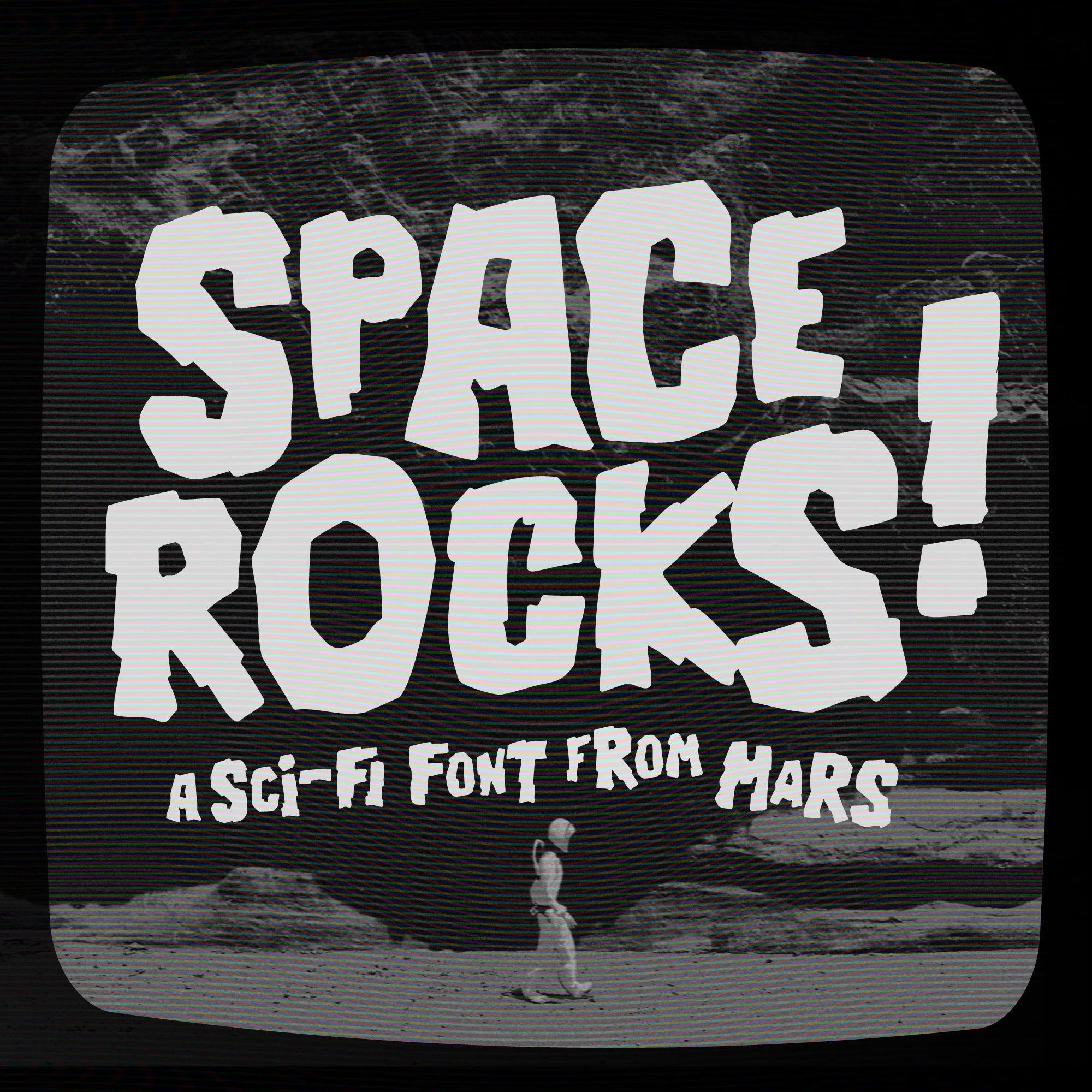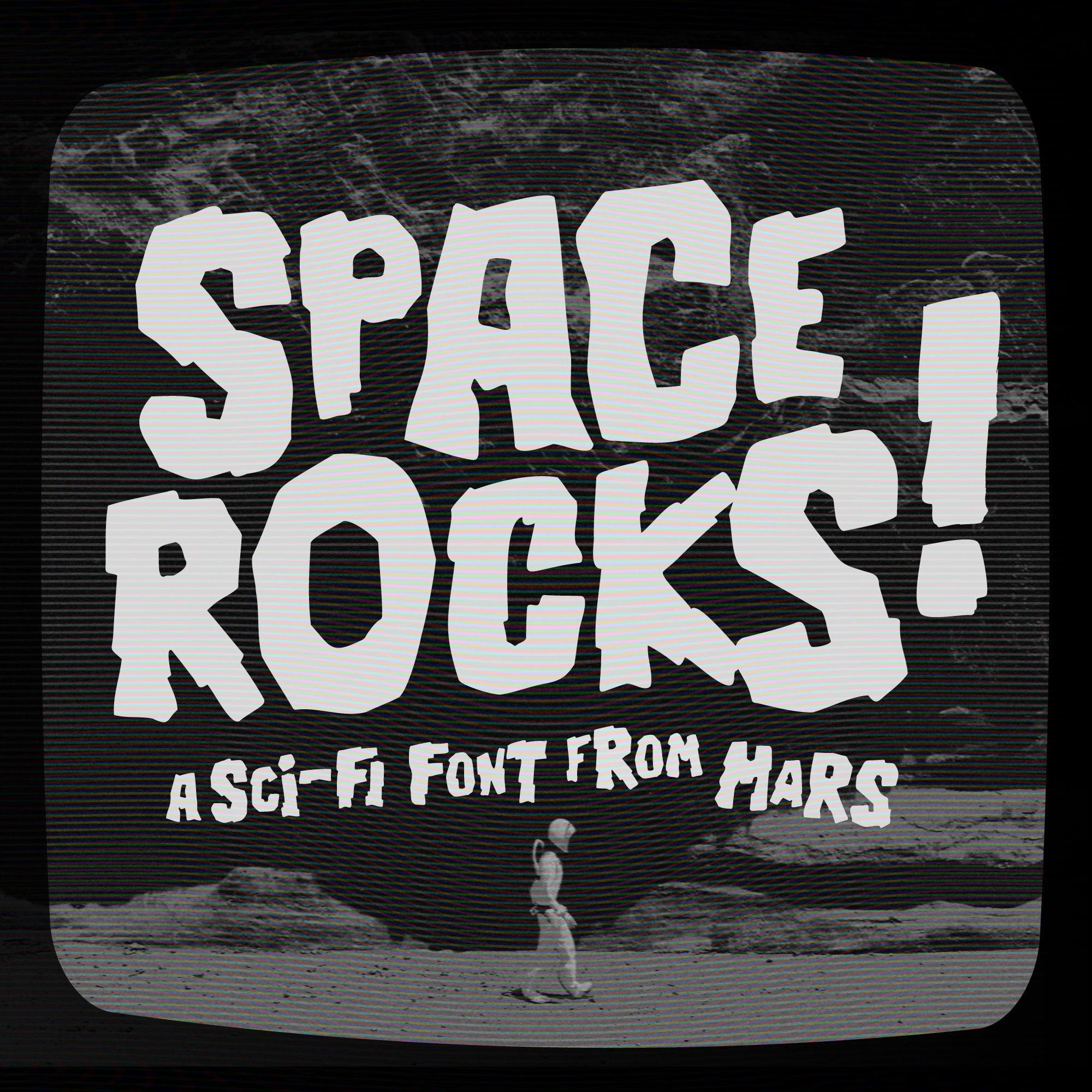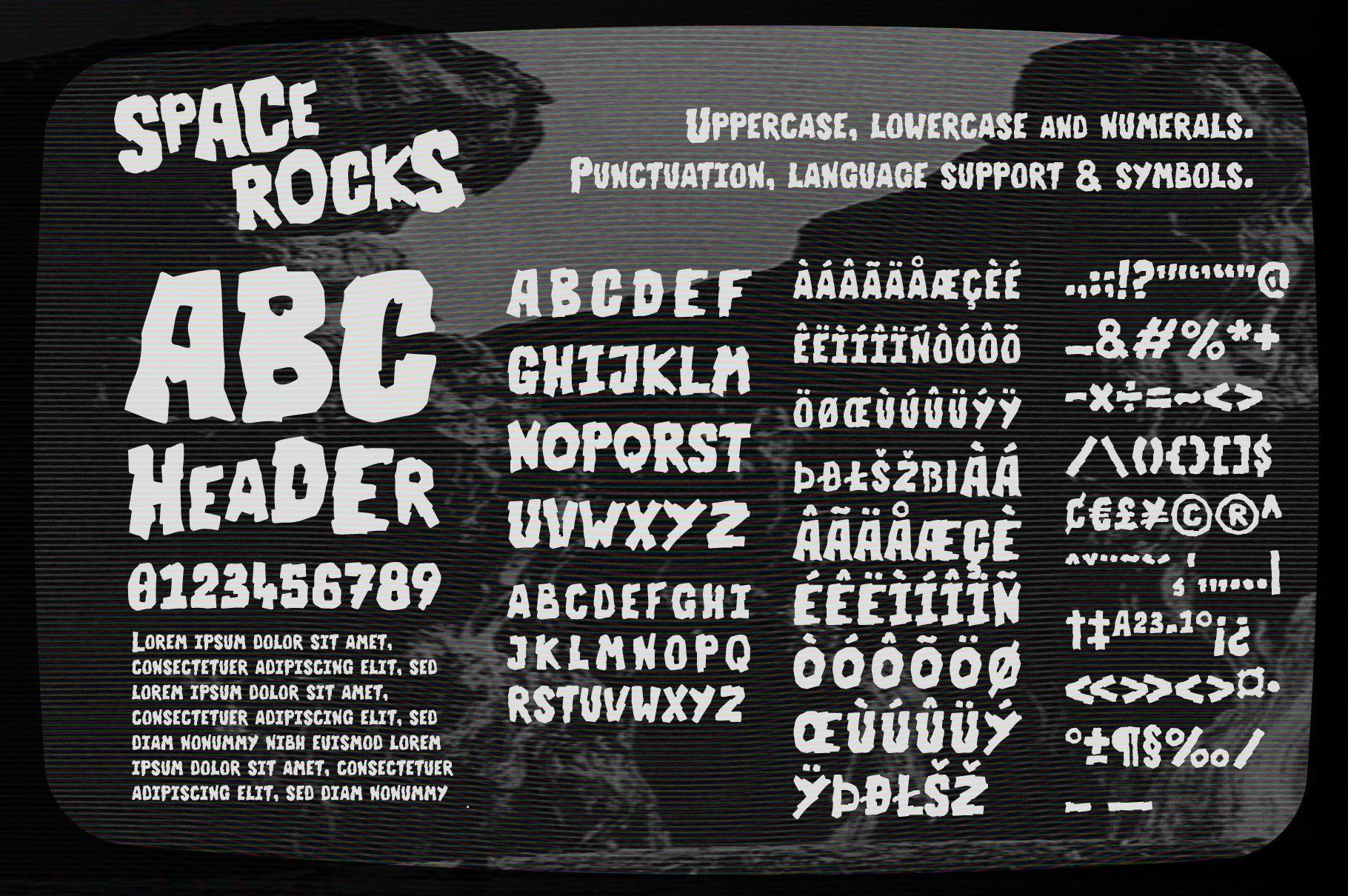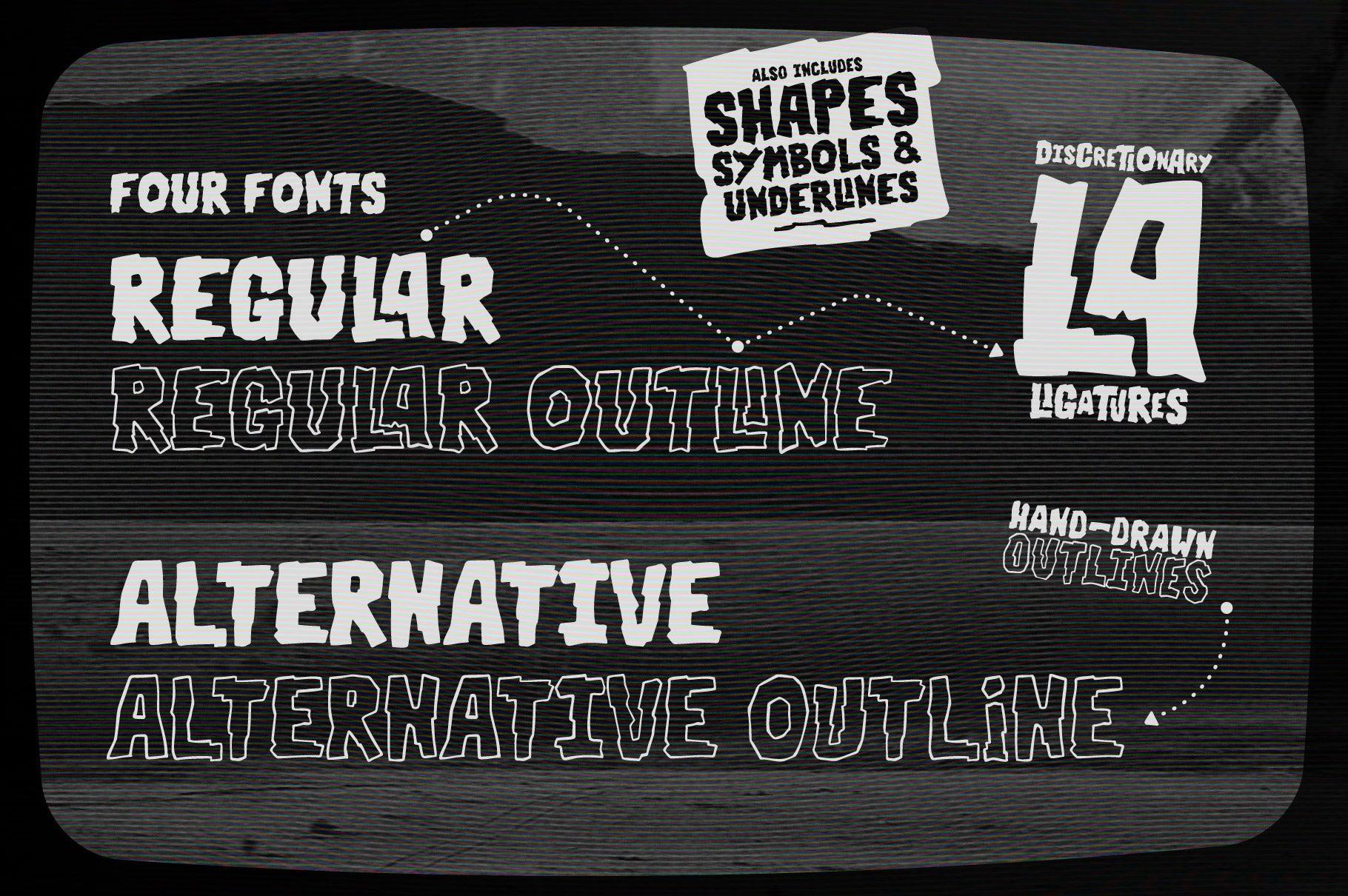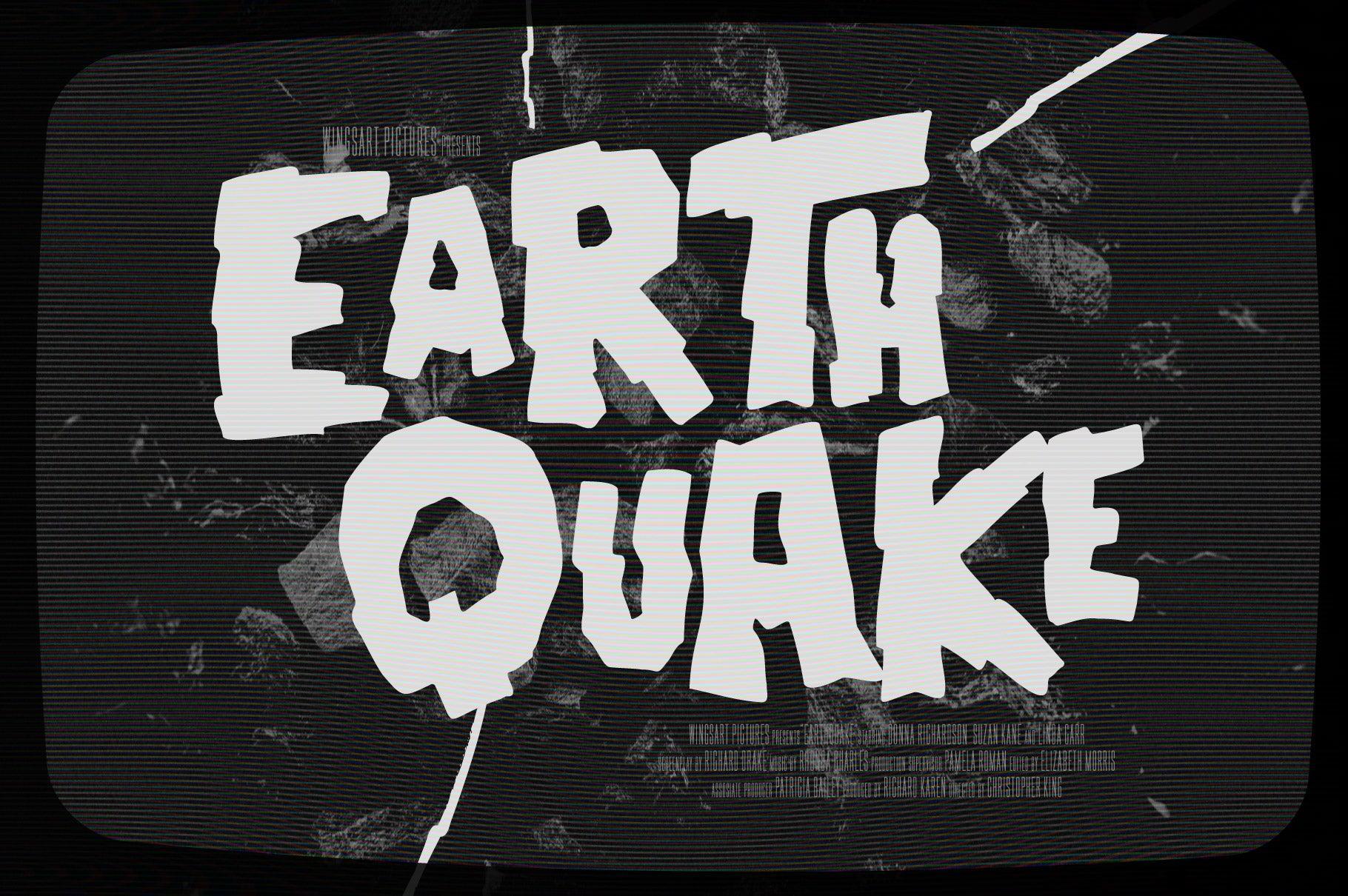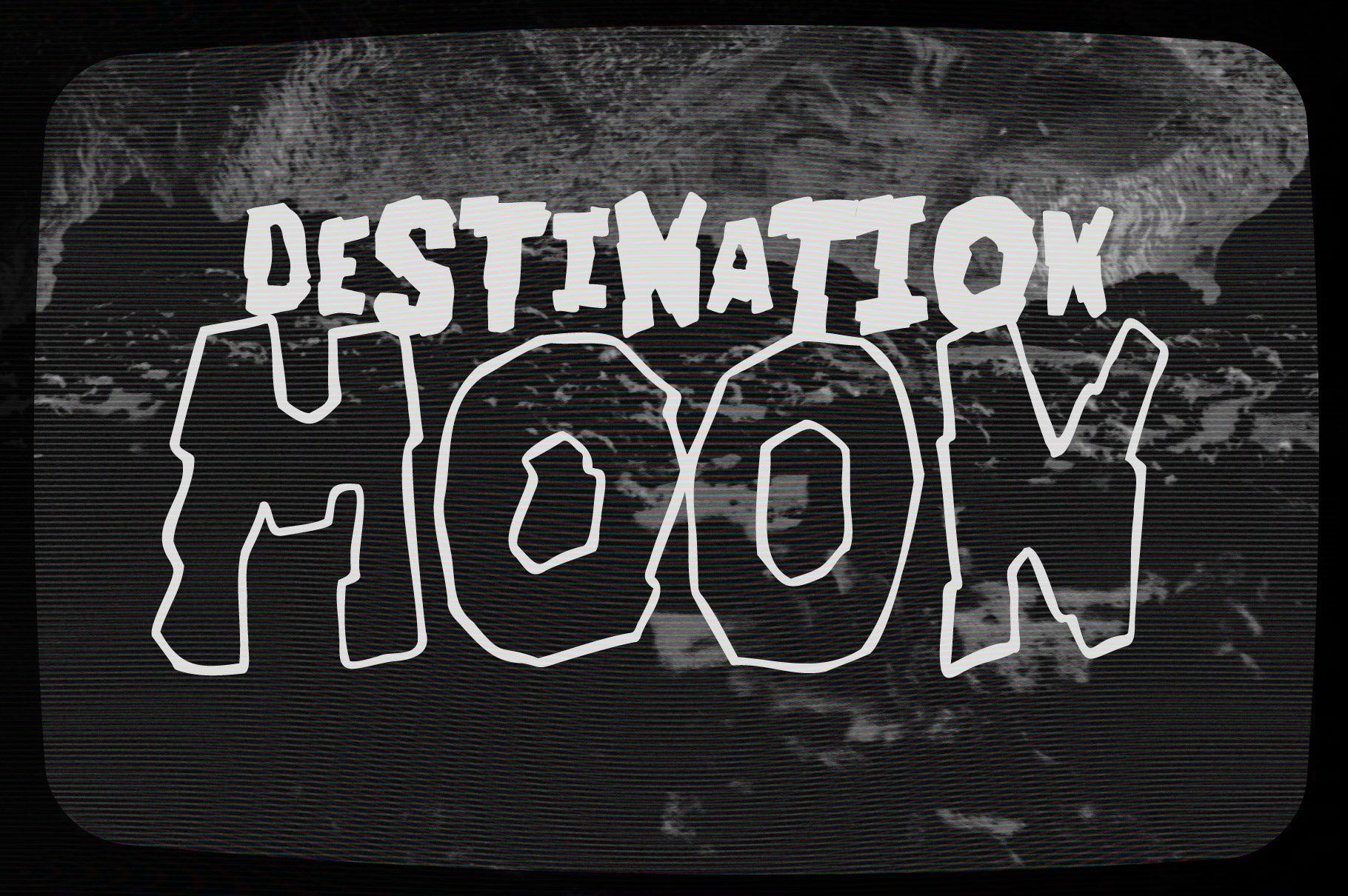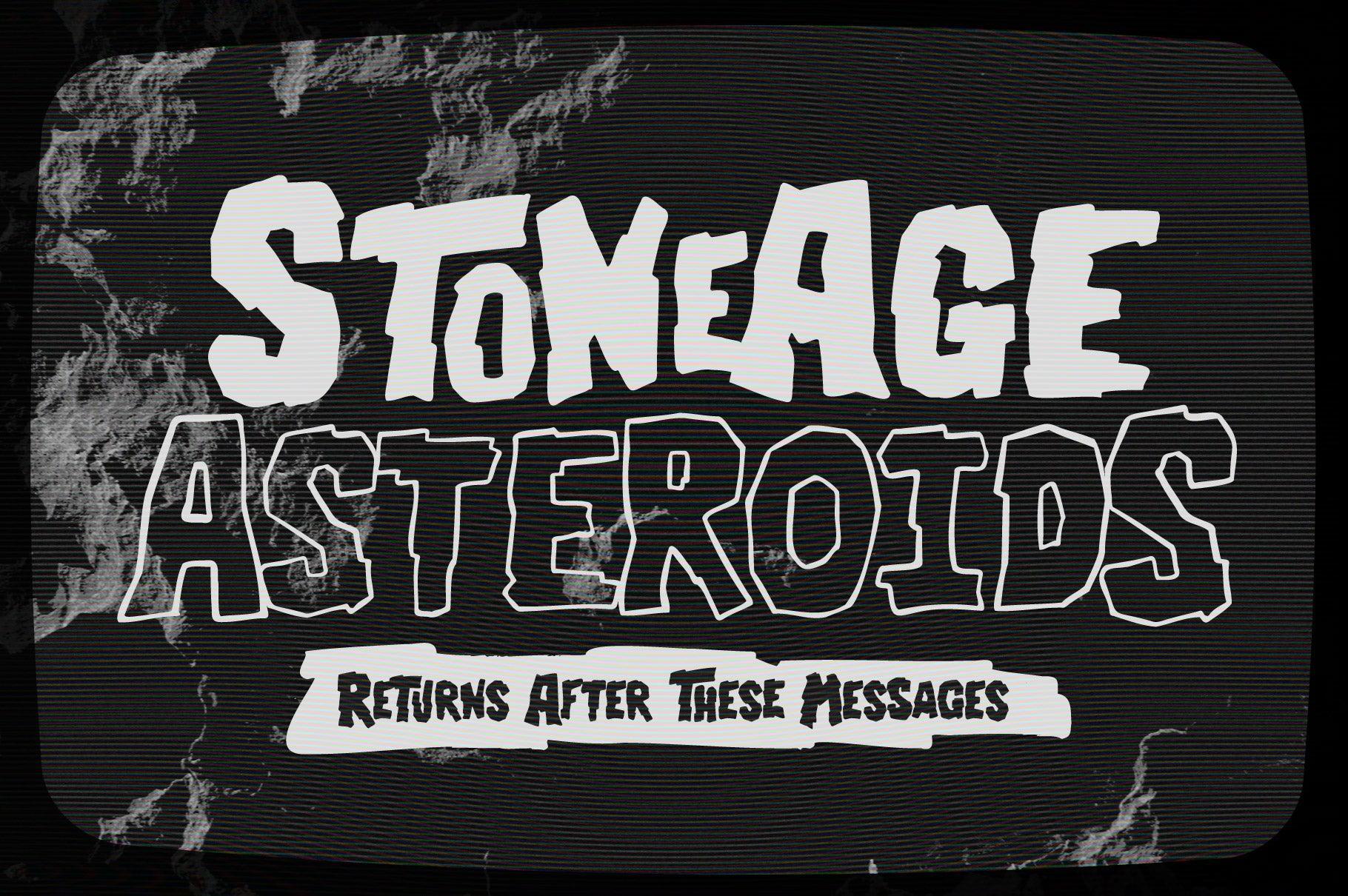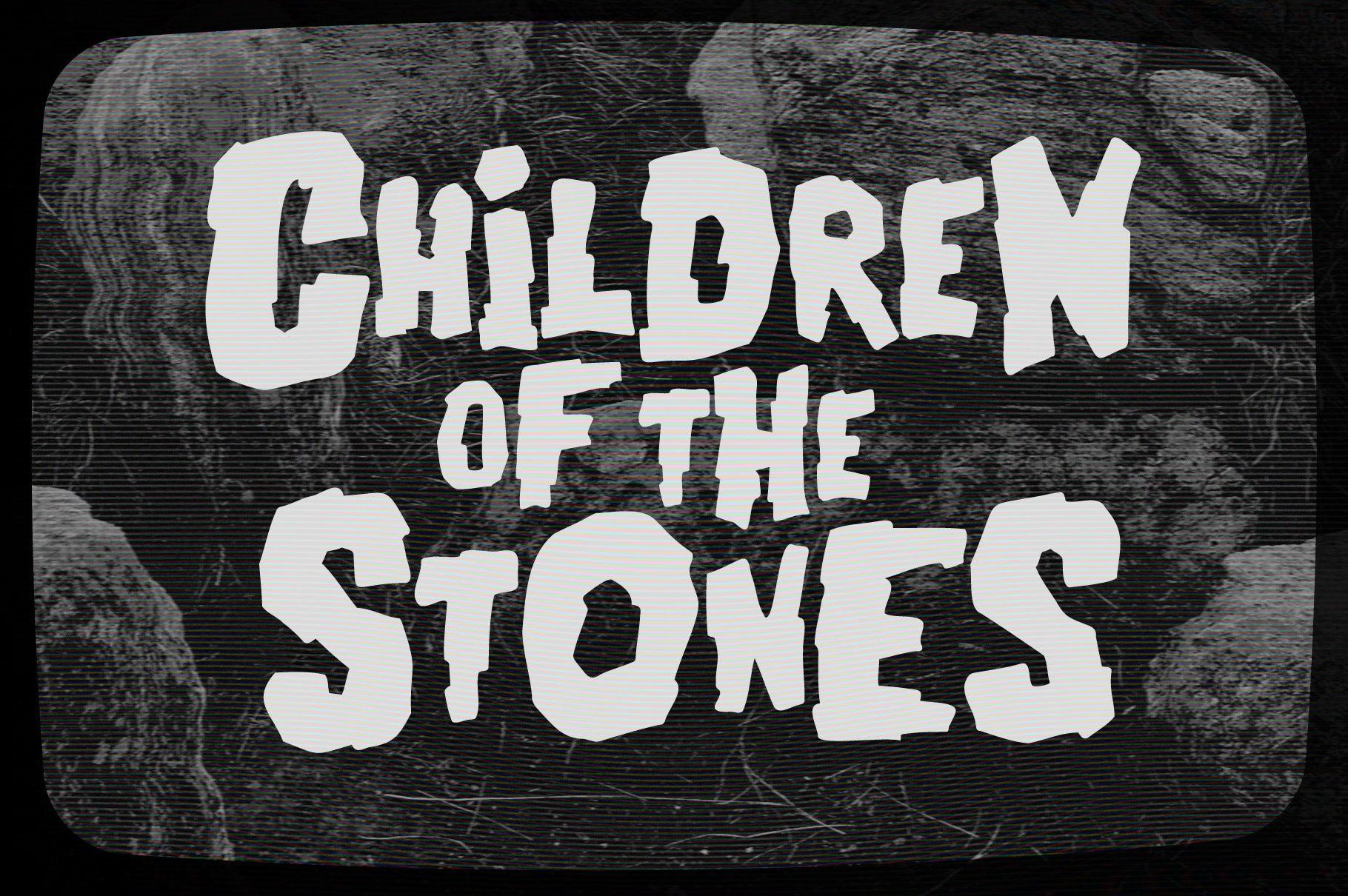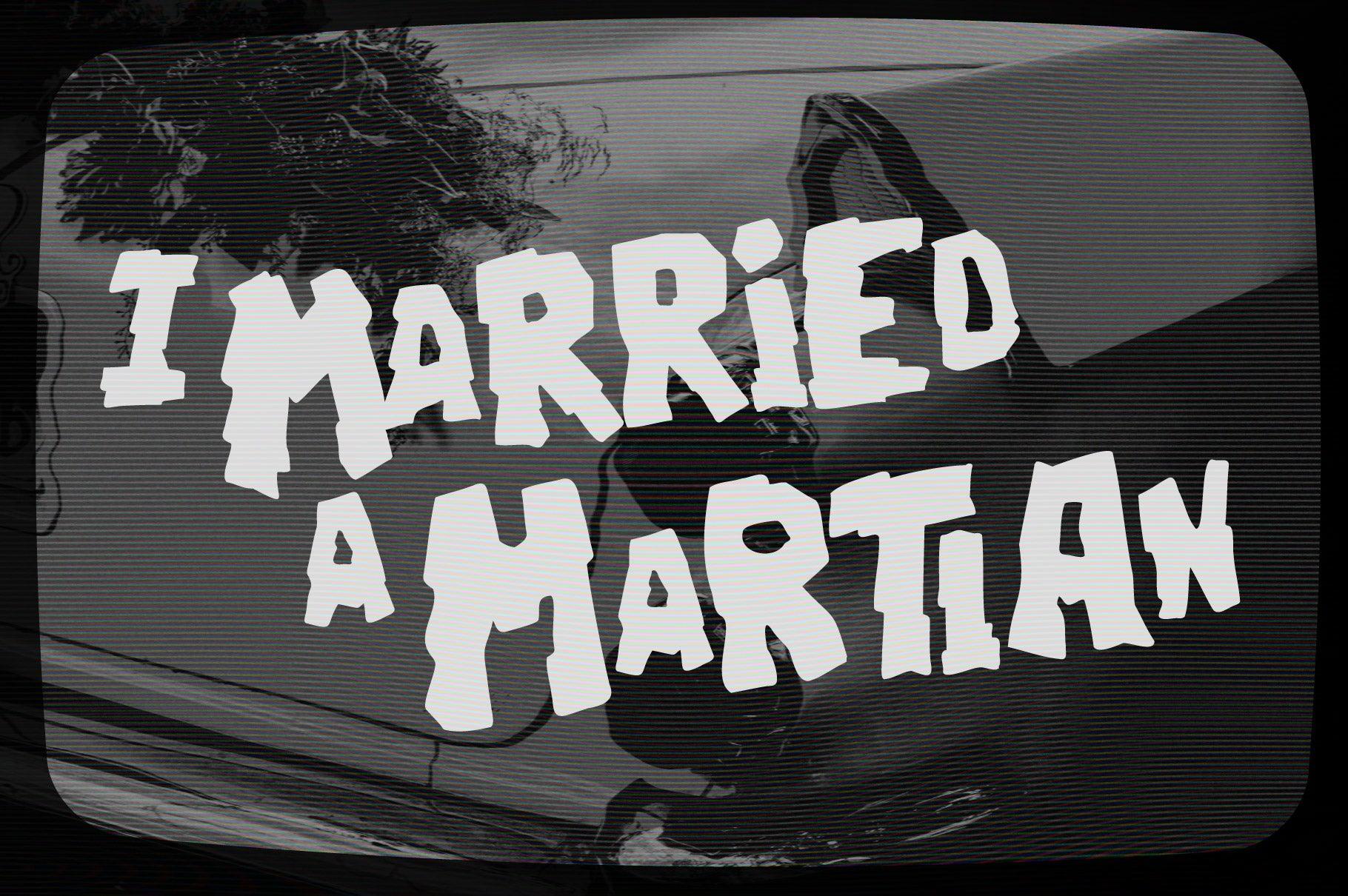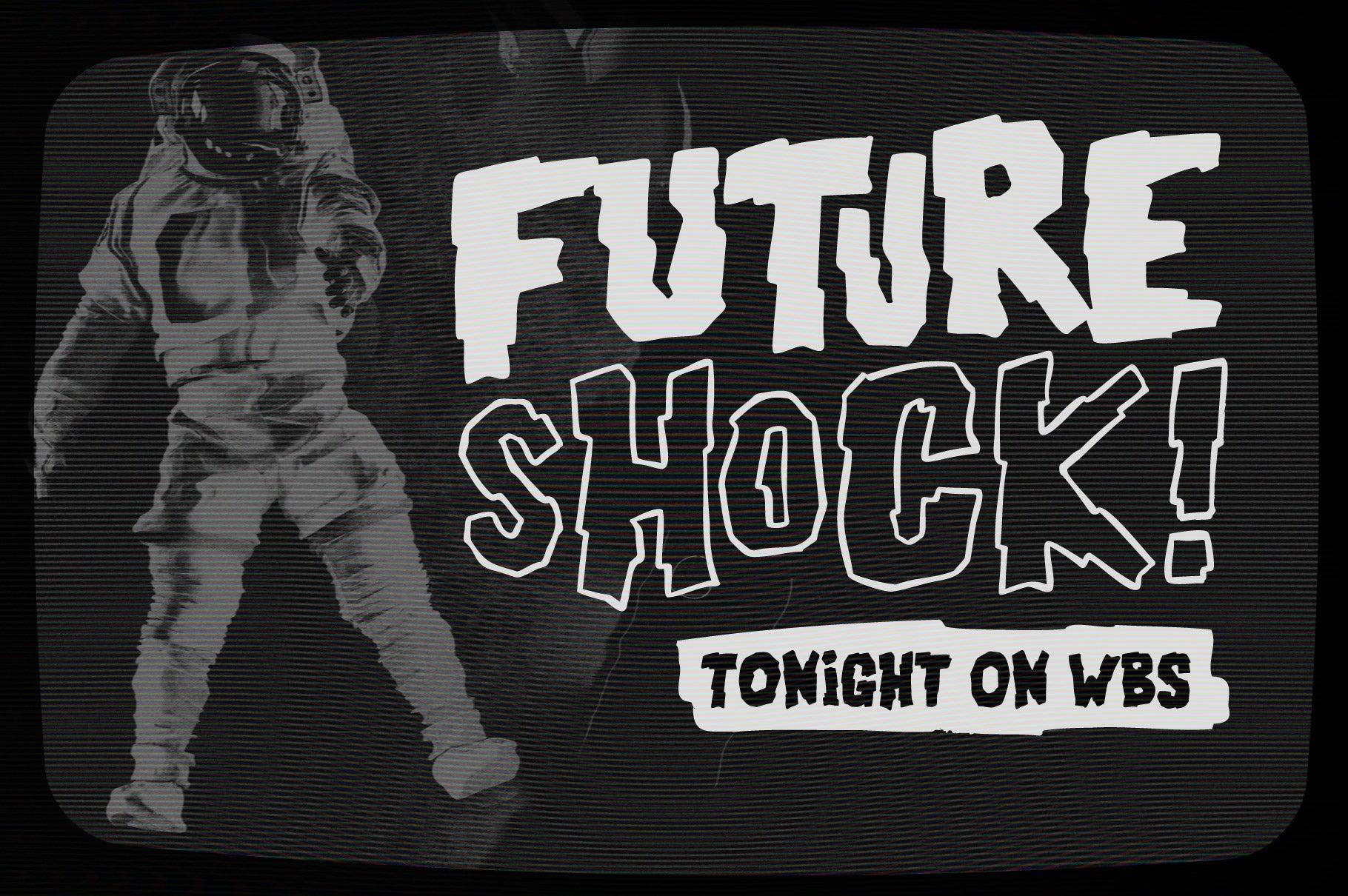
Space Rocks! A Retro Sci-Fi Font Inspired by 1950s Television Serials
Space Rocks! is a hand-drawn retro sci-fi font inspired by 1950s television serials, featuring all-caps lettering with a range of discretionary ligatures. The package includes Regular and Outlined versions, complete sets of uppercase and lowercase characters, numerals, punctuation, language support, underlines, and symbols, designed for a vintage aesthetic.
Ideal for retro-inspired graphic design and 1950s science fiction themes. Perfect for movie titles, television show graphics, album covers, and posters, ensuring a distinctive, hand-drawn aesthetic that captures the playful essence of vintage sci-fi.